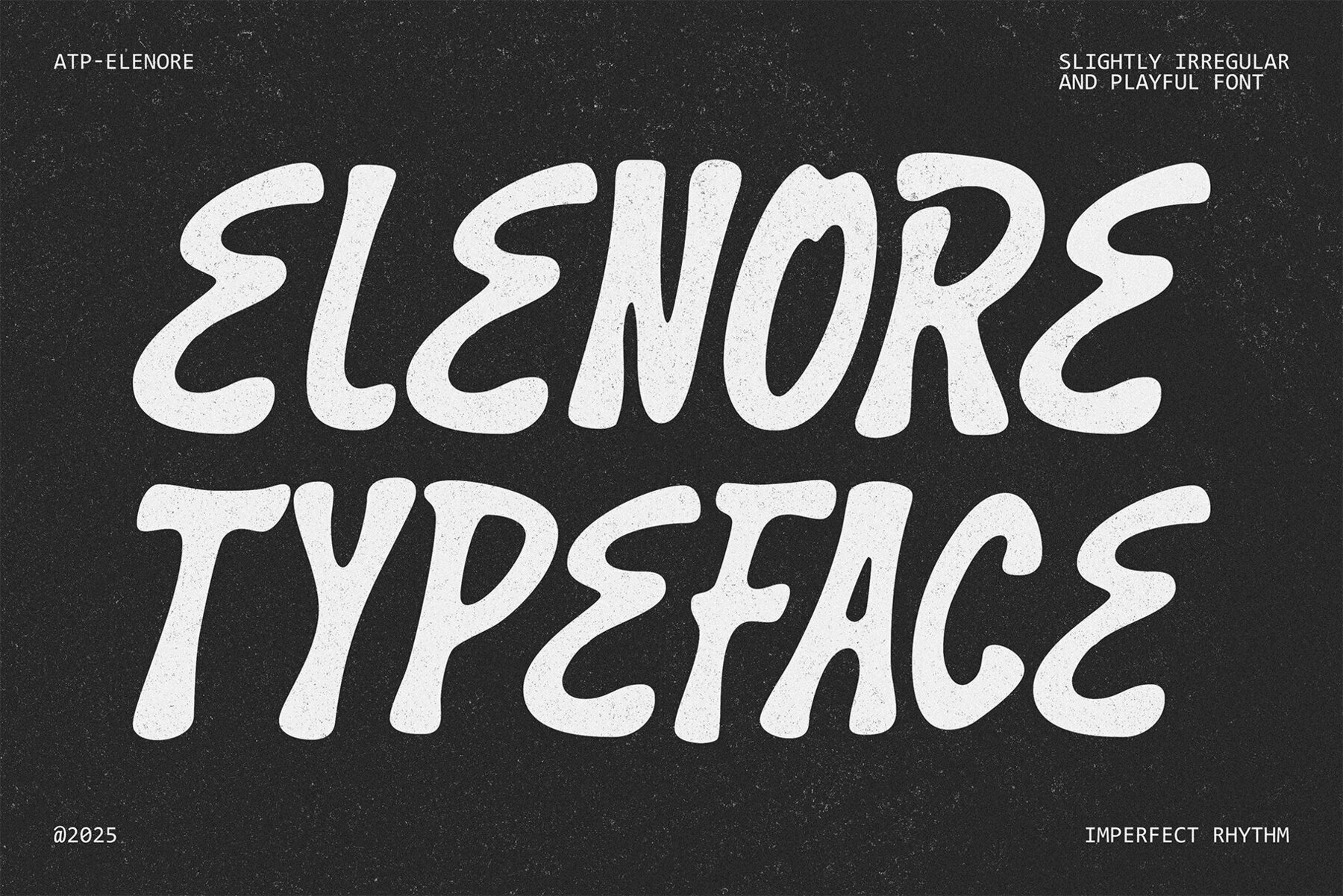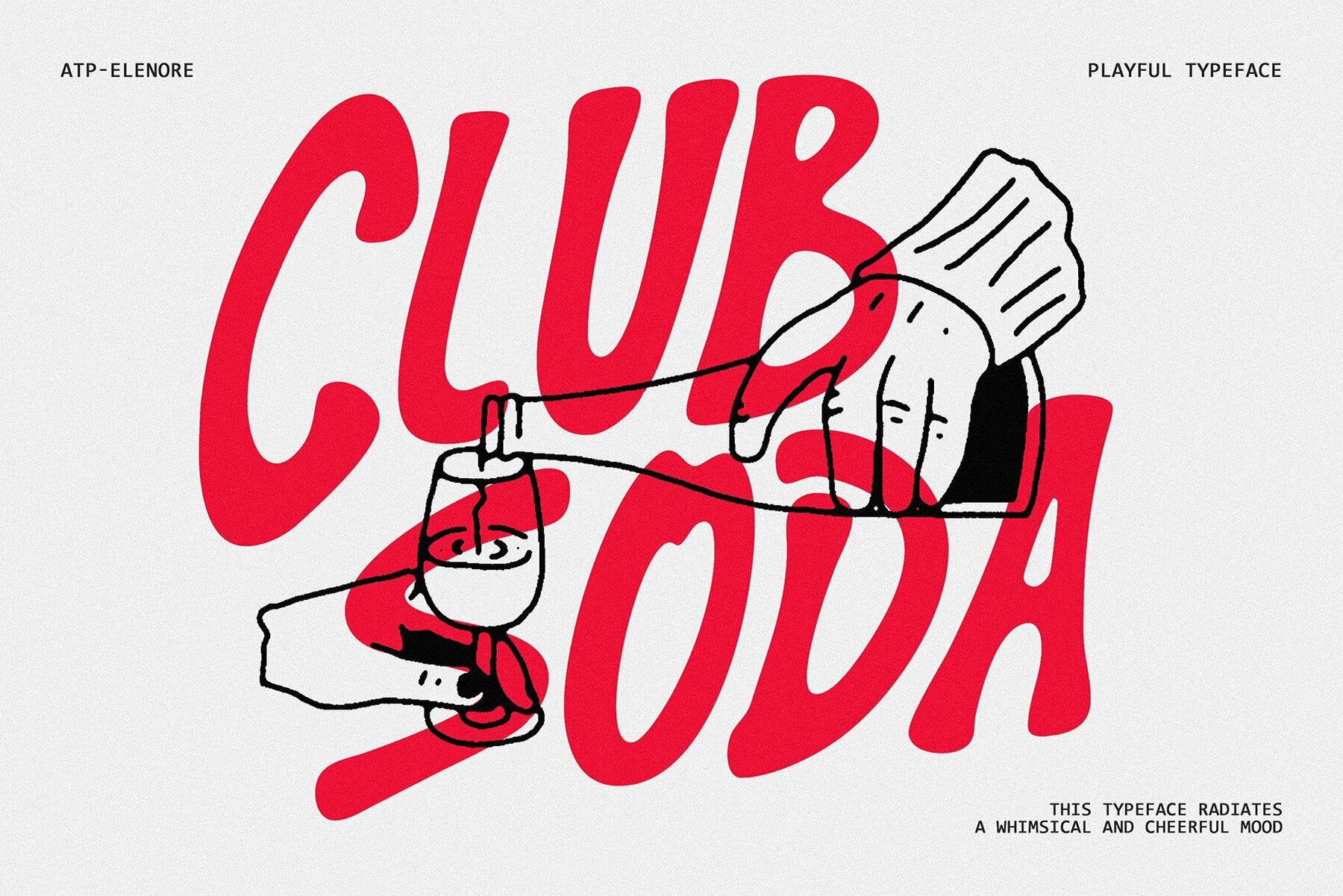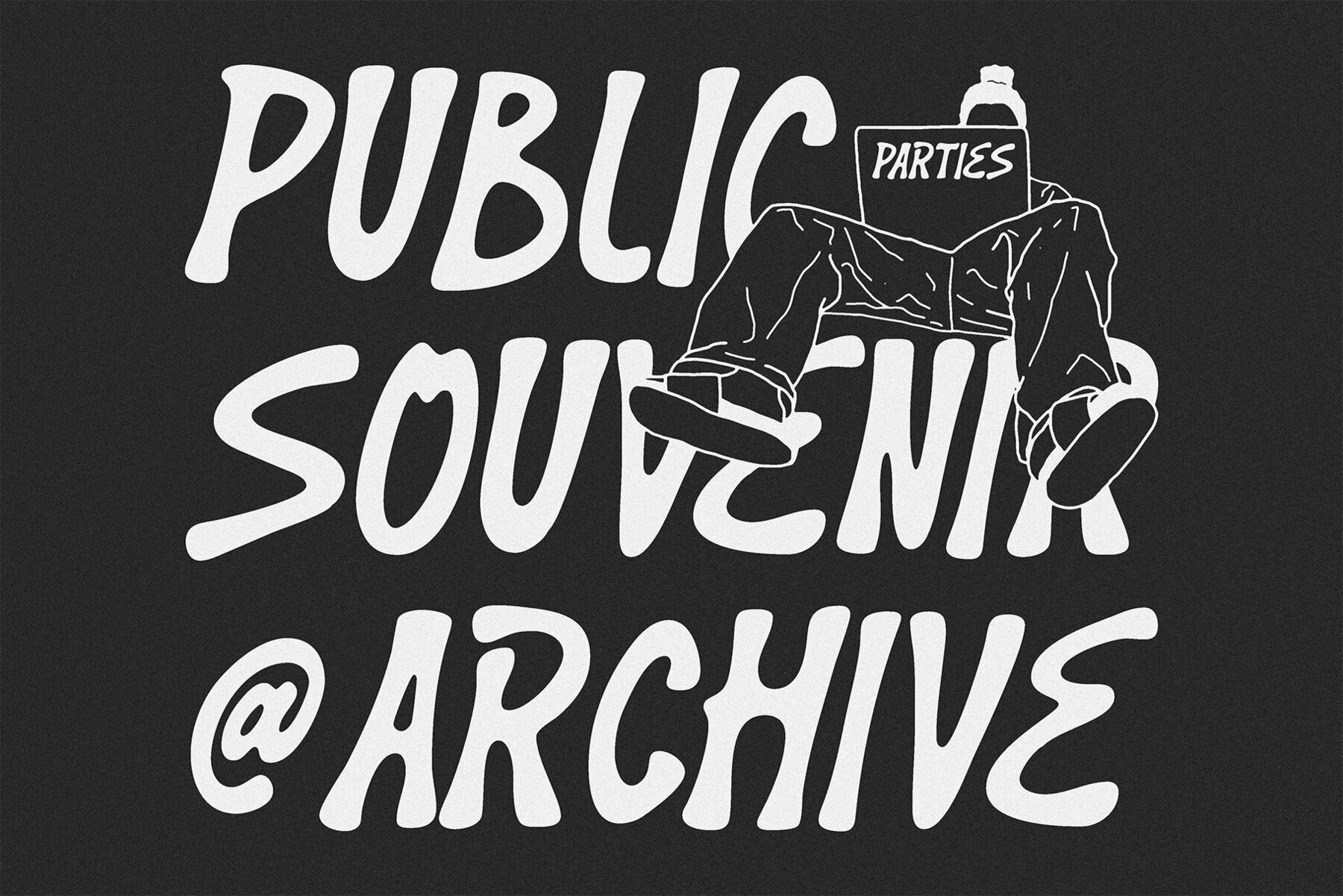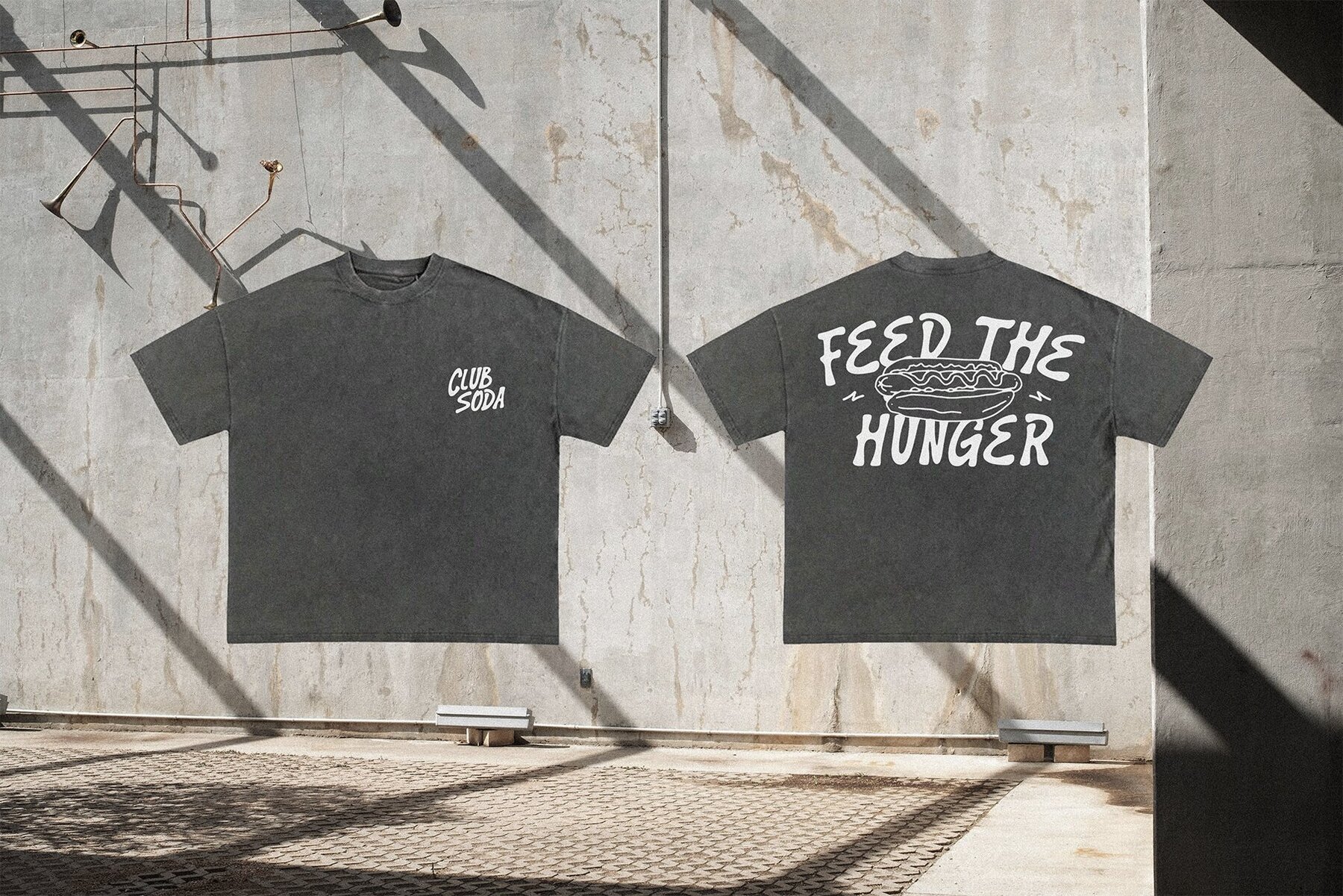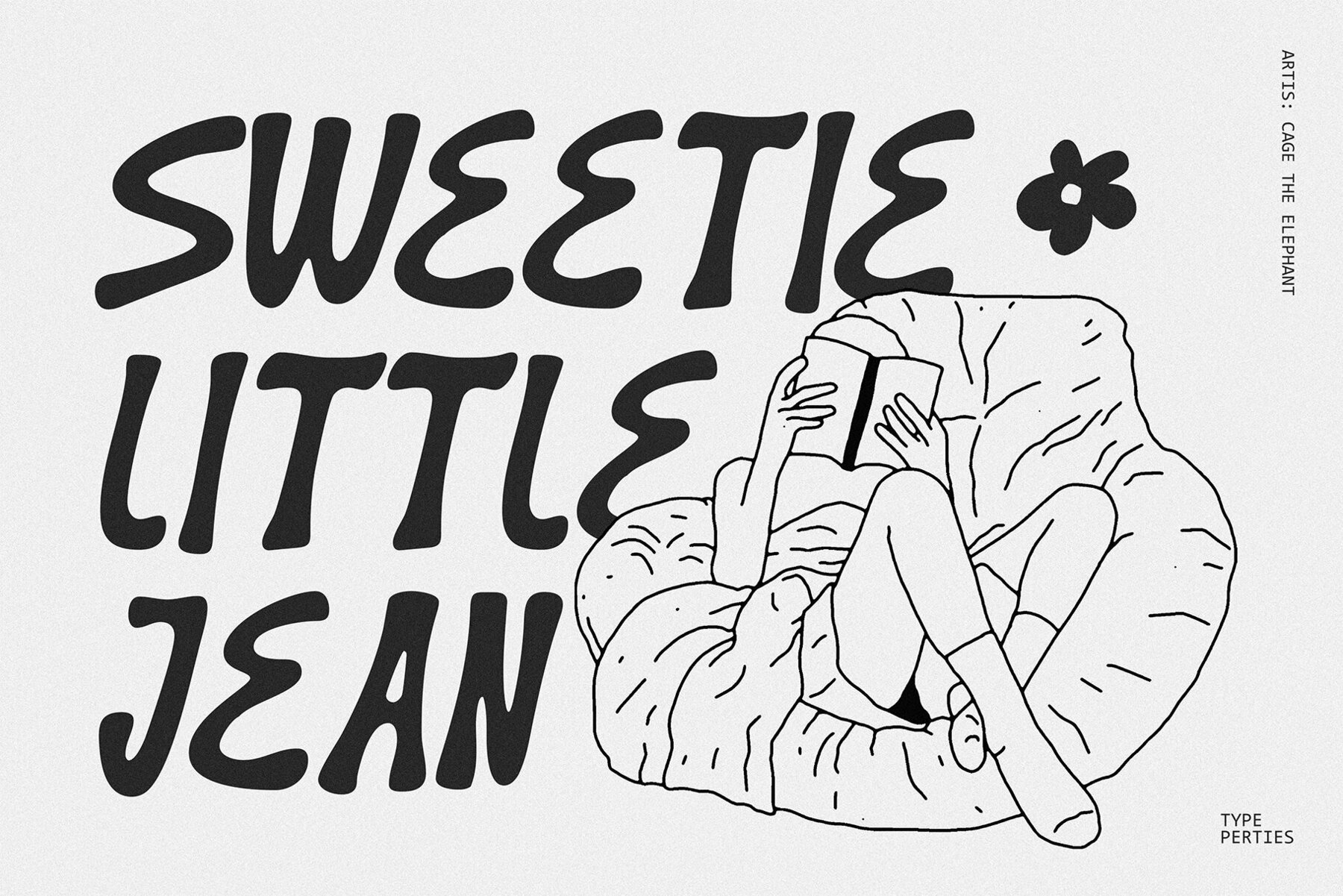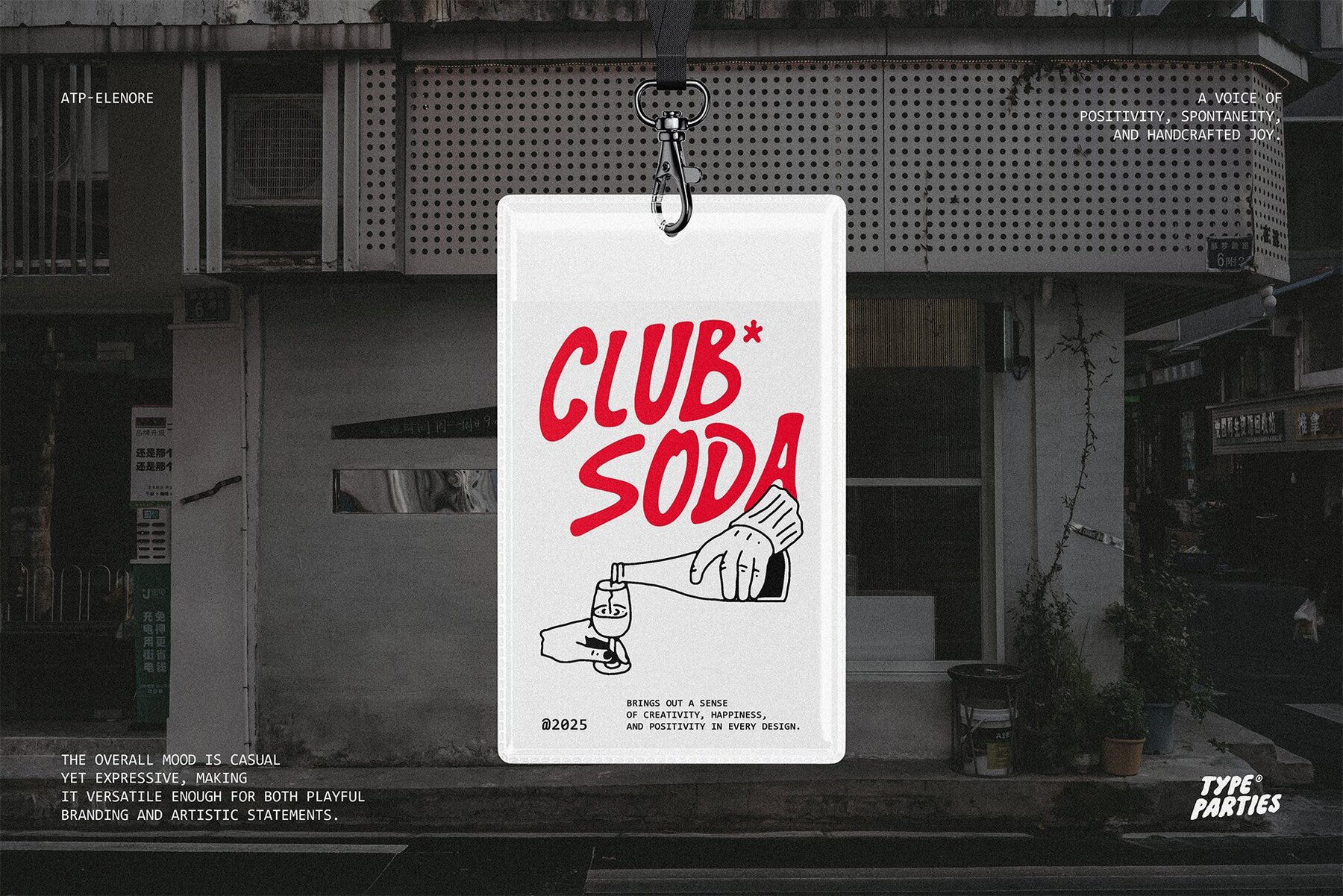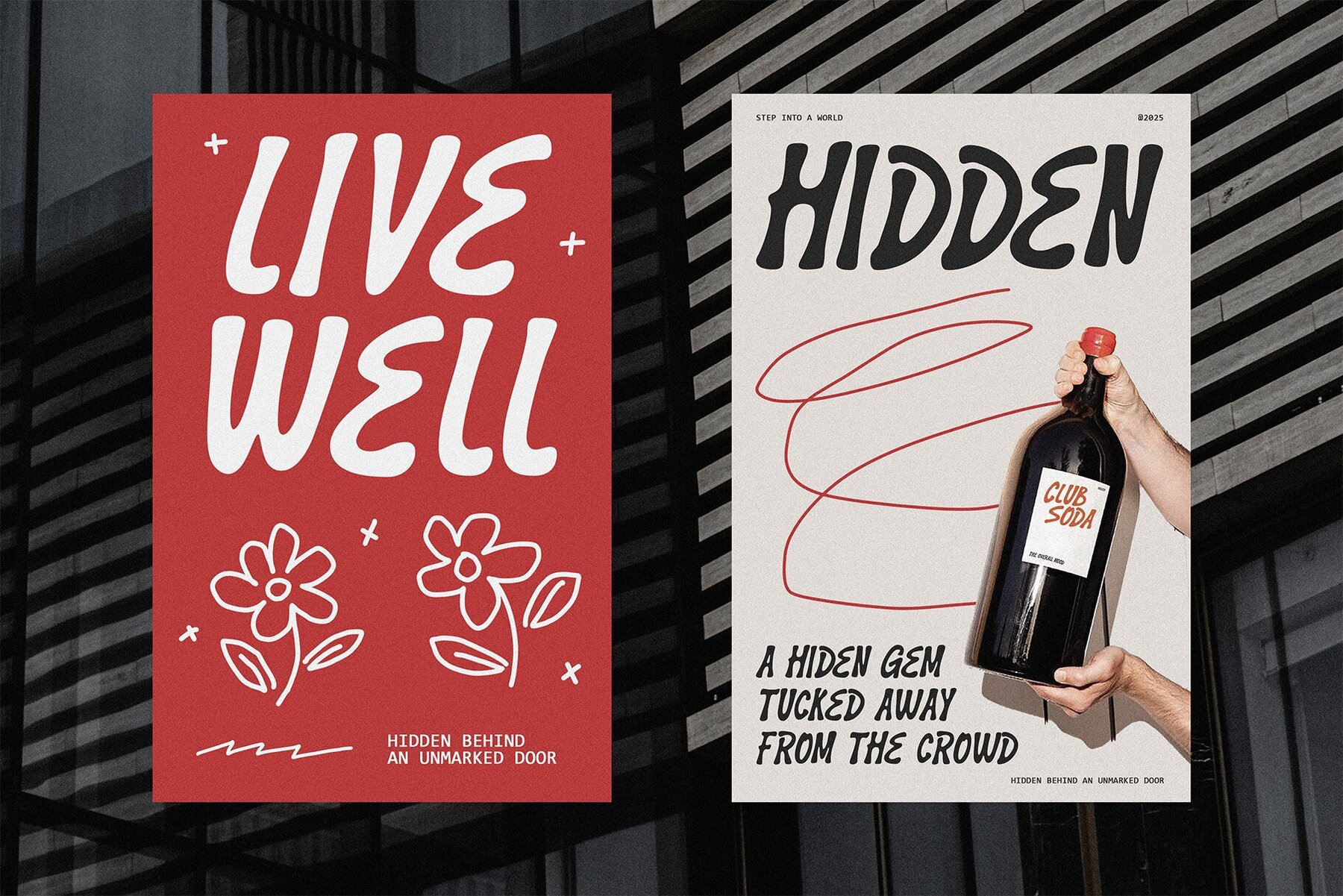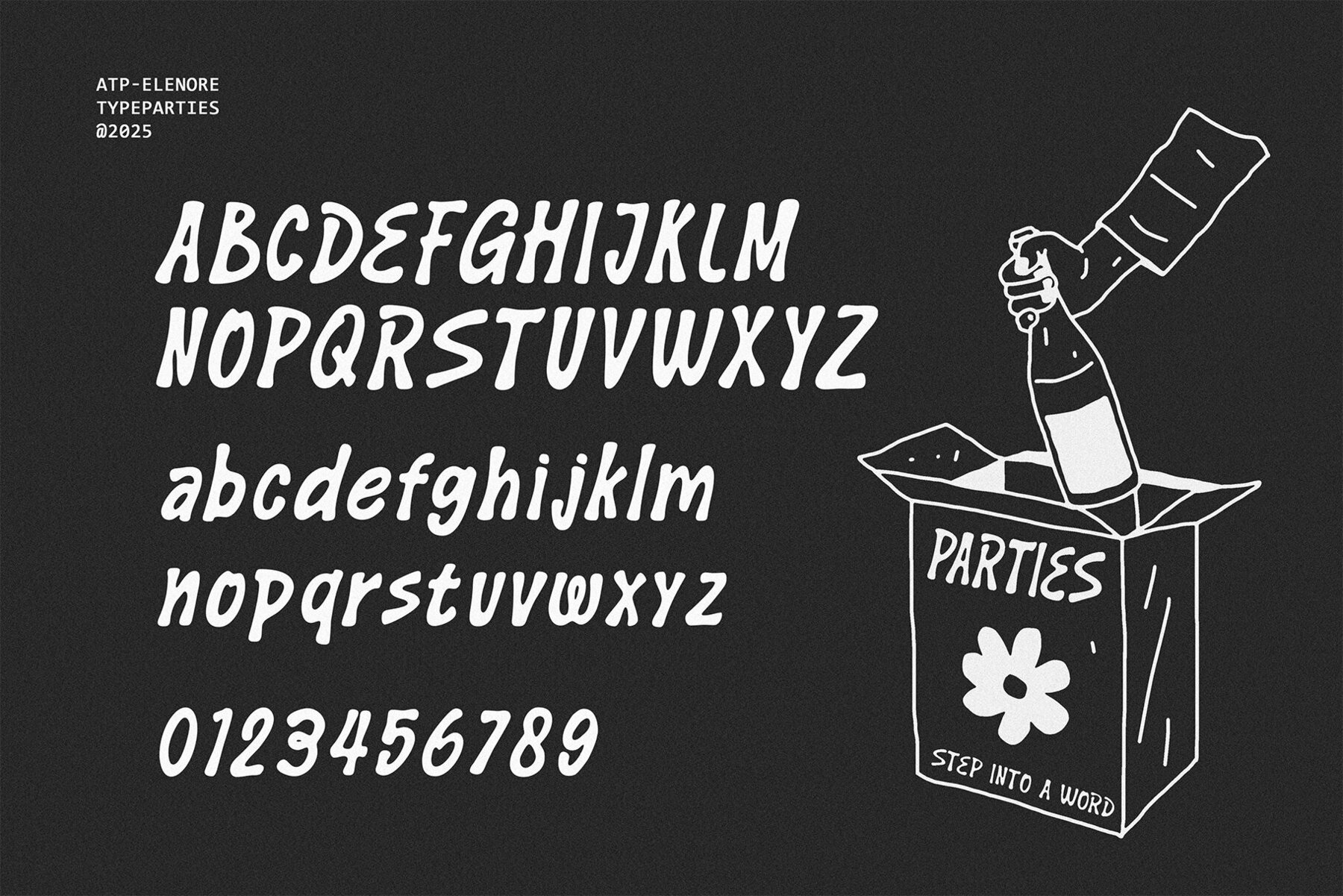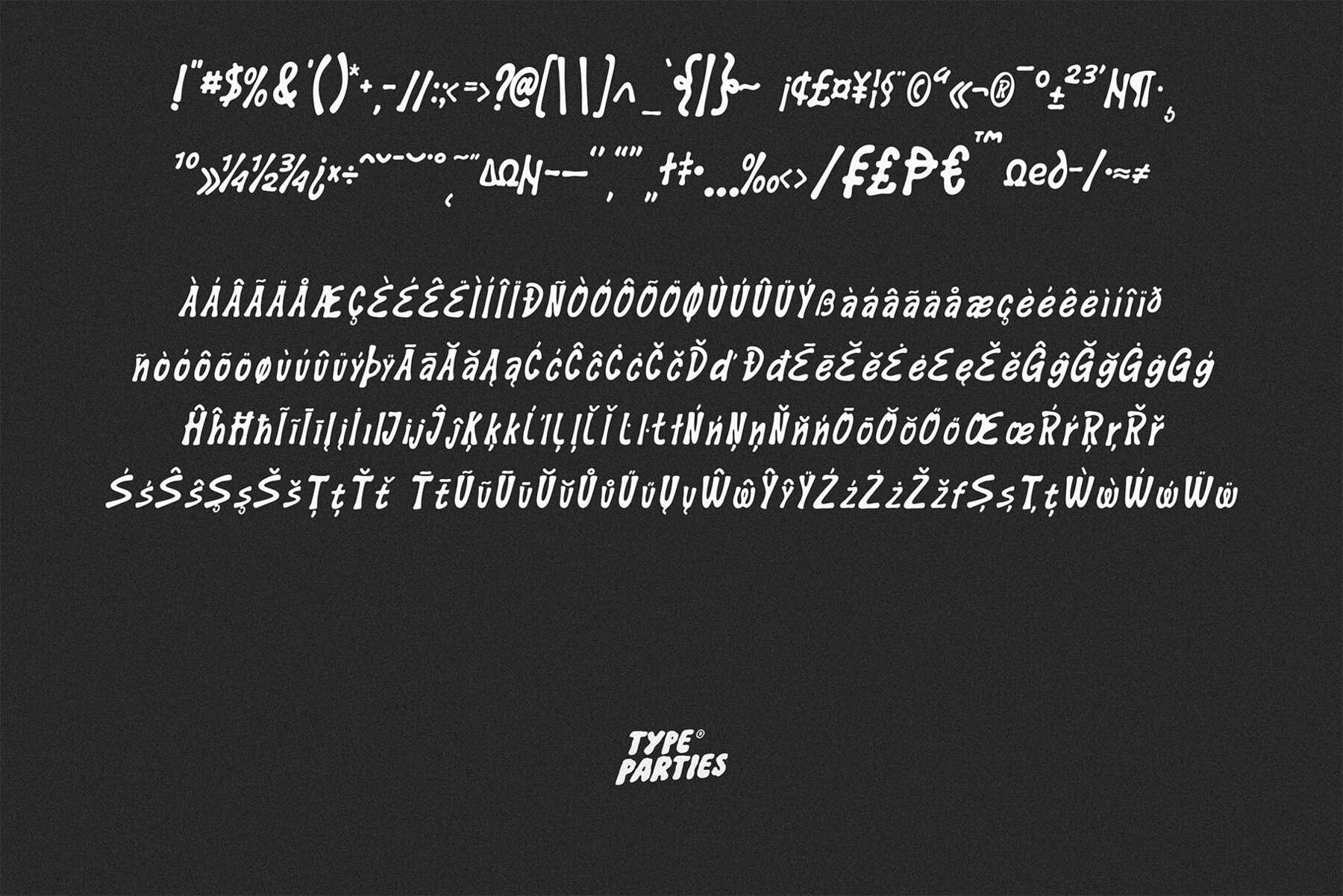
Elenore Font
ATP Elenore
This typeface exudes a whimsical and cheerful mood, characterized by slightly irregular, hand-drawn strokes that contribute to its authentic and playful nature. Each letterform, while spontaneous, is crafted with intention, featuring tall proportions and narrow spacing that evoke movement and liveliness. The uneven stroke widths and subtle imperfections echo the charm of handwriting, making this font approachable and full of character. Its irregularity, far from seeking mechanical precision, imparts warmth, friendliness, and creativity. Ideal for a variety of design projects, this font shines wherever personality and charm are paramount. It is an excellent choice for children's books, greeting cards, lifestyle products, eco-conscious packaging, or handmade crafts. On social media, its whimsical energy helps captions, quotes, or announcements stand out with a friendly, engaging tone. For branding, it perfectly suits companies aiming to project an approachable, creative, and down-to-earth ethos—from small cafés and bakeries to wellness brands and lifestyle blogs. Features:Whimsical Hand-Drawn Typeface: Infuse Personality into Design